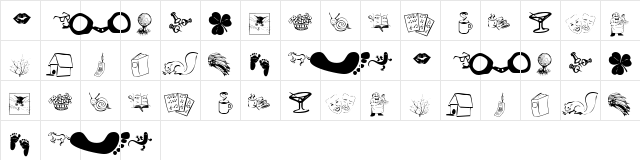
KR Katlings Seven Regular
Design Context for KR Katlings Seven Typeface
KR Katlings Seven is a composed and adaptable typeface that performs quietly and consistently across a wide range of design contexts.